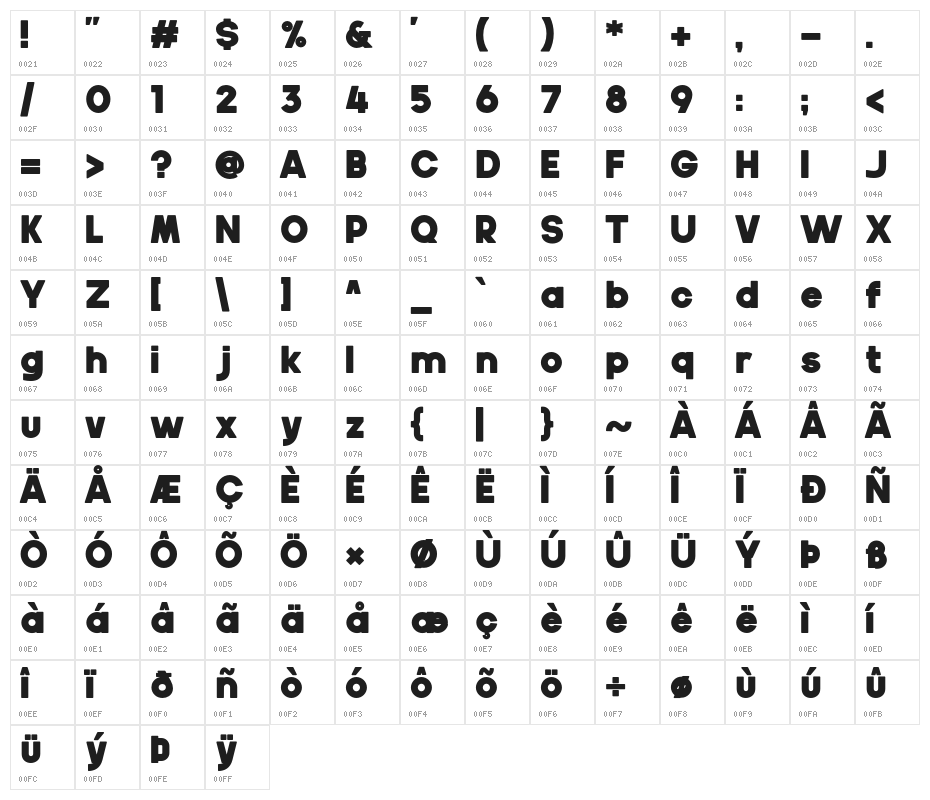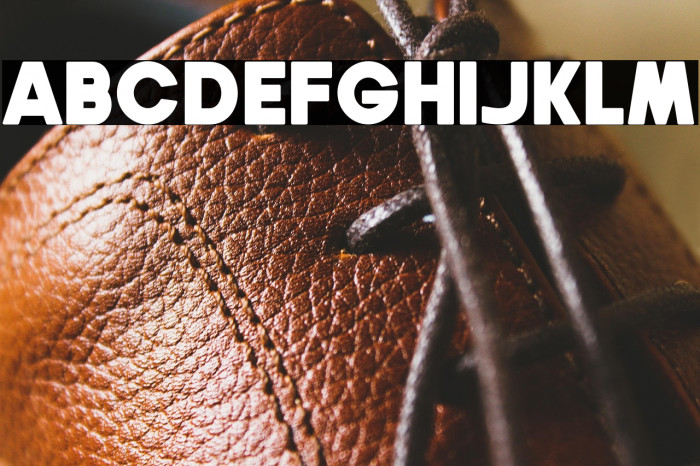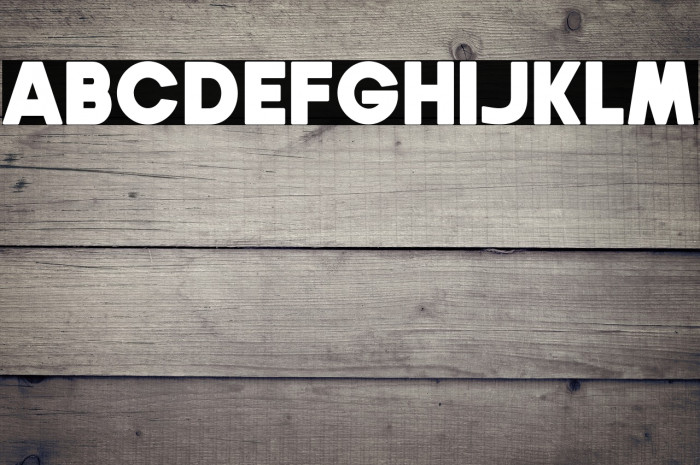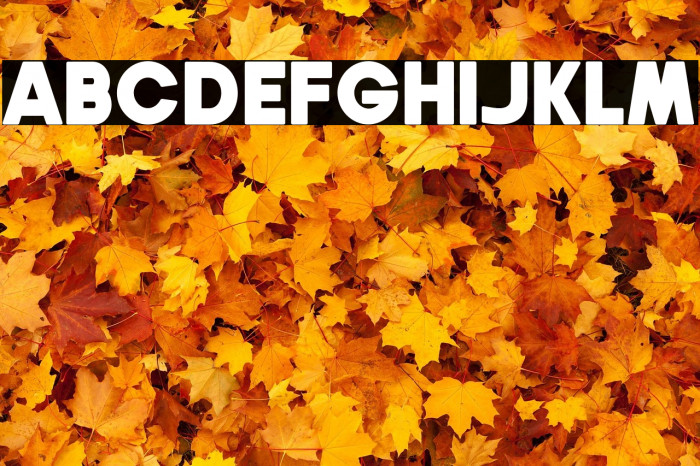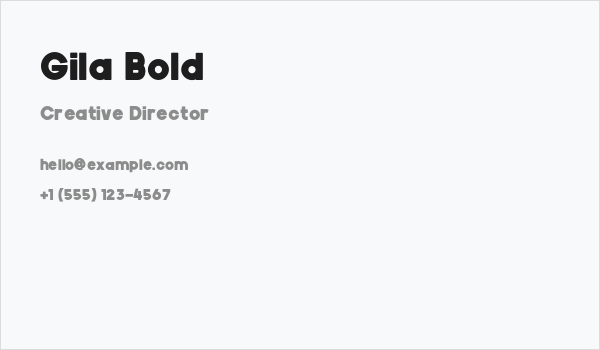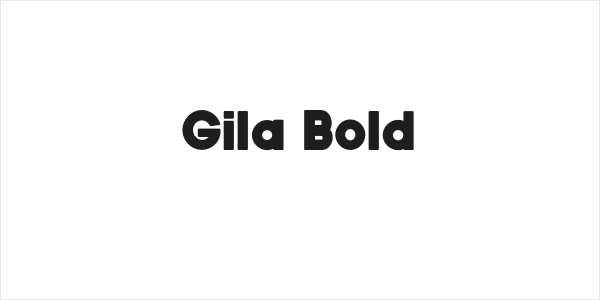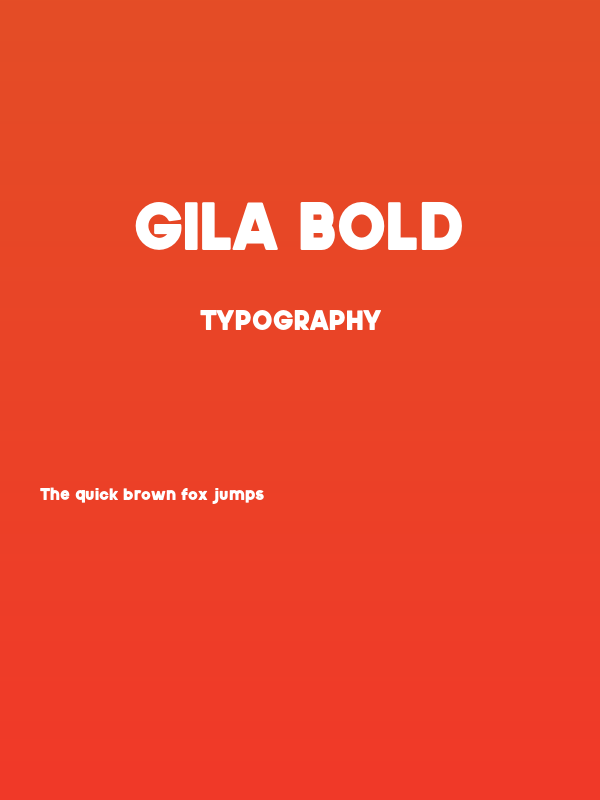
Gila Bold Font
Gila Bold Description
This font is a bold, sans-serif typeface characterized by its strong and impactful presence. The letters are thick and evenly weighted, providing a sense of stability and confidence. The geometric shapes of the characters, with their rounded edges and uniform stroke widths, create a modern and clean aesthetic. The uppercase and lowercase letters maintain a consistent style, ensuring readability and versatility. The numerals and special characters are designed to match the boldness of the alphabet, making them suitable for various applications. This font's simplicity and clarity make it ideal for attention-grabbing headlines and branding.
| Proposed Projects | Ideal for branding, advertising, posters, and headlines where a strong visual impact is needed. |